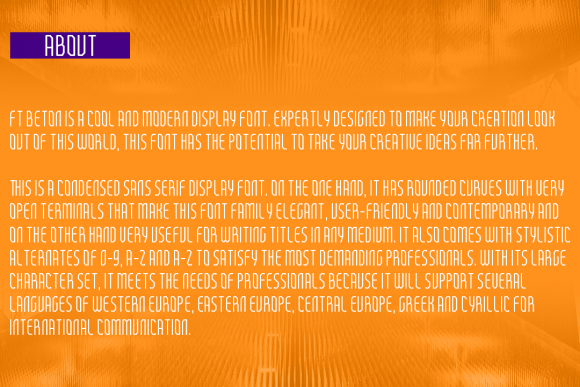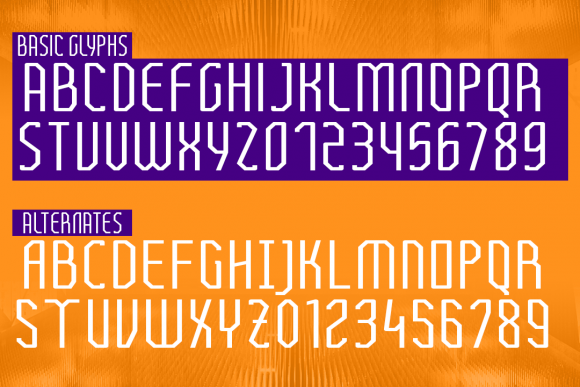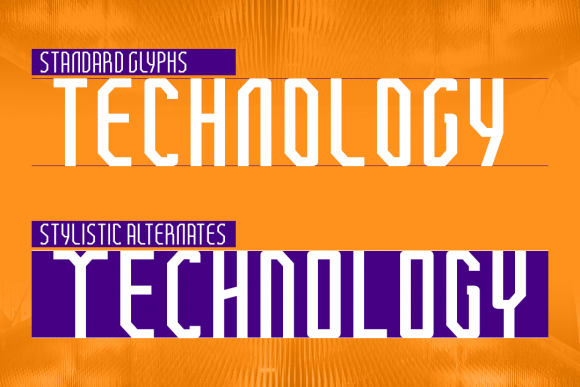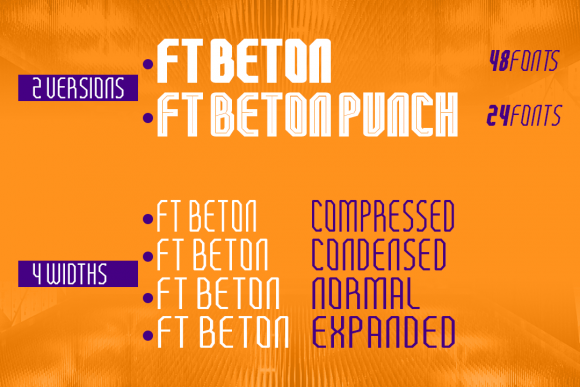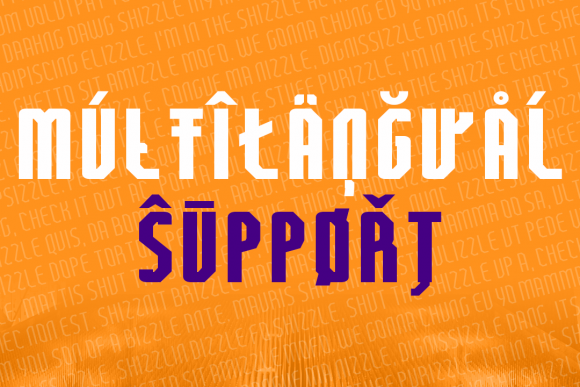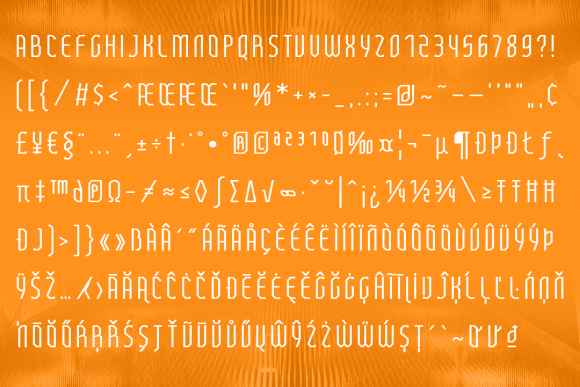
Introducing FT Beton: The Cool and Modern Display Font You Need
In the world of design, fonts play a crucial role in making your creations stand out. A perfect font can elevate your project from ordinary to extraordinary. If you’re a designer or crafter looking for a cool and modern display font, look no further than FT Beton. This versatile font is an incredibly valuable asset to your font library, capable of making any creation shine.
The Features of FT Beton
FT Beton is a modern sans-serif display font that boasts a unique and stylish design. Its clean lines, geometric shapes, and carefully crafted letterforms make it perfect for a wide range of design projects. Here are some of the key features that make FT Beton an exceptional font:
- Unique and Stylish Design: FT Beton has a distinctive look that sets it apart from other fonts. Its modern design makes it perfect for projects that require a fresh and contemporary feel.
- High Versatility: This font can be used for a wide range of design projects, from branding and advertising to packaging and digital media.
- Excellent Legibility: FT Beton is designed to be highly legible, even at small sizes, making it perfect for use in body text or captions.
- Multilingual Support: FT Beton supports multiple languages, making it a great choice for designers who work on international projects.
Why Choose FT Beton?
With so many fonts available, why should you choose FT Beton? Here are just a few reasons why this font stands out:
- Stand Out from the Crowd: FT Beton is a unique and stylish font that will help your designs stand out from the competition.
- Easy to Pair: This font pairs well with a wide range of other fonts, making it easy to use in combination with other typefaces.
- Professional-Grade Quality: FT Beton is a high-quality font that is designed to look great in any design project.
- Constantly Updated: The font is regularly updated to ensure it stays fresh and relevant.
How to Use FT Beton in Your Design Projects
FT Beton is a versatile font that can be used in a wide range of design projects. Here are a few ideas to get you started:
- Branding and Logo Design: Use FT Beton to create a unique and memorable logo for your brand.
- Advertising and Marketing Materials: This font is perfect for use in advertising and marketing materials, such as brochures, flyers, and posters.
- Packaging Design: FT Beton can be used to create eye-catching packaging that stands out on store shelves.
- Digital Media: This font is perfect for use in digital media, such as website headers, social media graphics, and email newsletters.
Tips for Getting the Most Out of FT Beton
Here are a few tips for getting the most out of FT Beton:
- Experiment with Different Sizes: FT Beton looks great at a wide range of sizes, so don’t be afraid to experiment with different font sizes.
- Play with Color: This font looks great in a wide range of colors, so try experimenting with different color schemes.
- Pair it with Other Fonts: FT Beton pairs well with a wide range of other fonts, so try combining it with other typefaces to create a unique look.
FT Beton is a cool and modern display font that is perfect for designers and crafters looking to elevate their design projects. With its unique and stylish design, high versatility, and excellent legibility, this font is an incredibly valuable asset to your font library. Whether you’re working on a branding project, advertising materials, or digital media, FT Beton is sure to make your creations stand out.